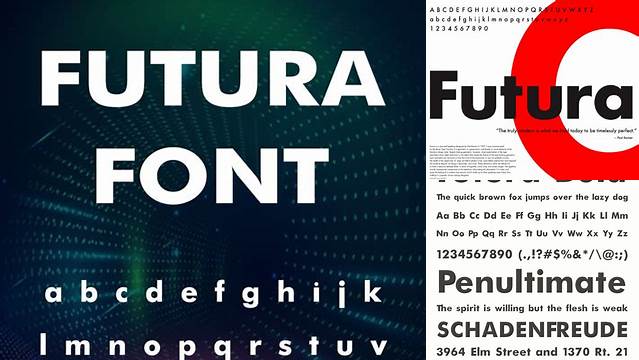
Hey guys! Are you on the hunt for the iconic Futura font family? You've come to the right place! This guide is your ultimate resource for a free download of the Futura font, covering everything from where to find it safely to how to install and use it like a pro. Futura is a timeless typeface, loved by designers and brands worldwide for its clean lines and modern aesthetic. Let's dive in and get you started with this fantastic font!
H2: The Allure of Futura: Why Choose This Font?
So, what's the big deal about Futura? Why is it still so popular, and why are you looking for a free download of the Futura font? Well, it's more than just a font; it's a statement. Futura, with its geometric sans-serif design, exudes both elegance and functionality. Designed by Paul Renner in 1927, it quickly became a favorite among designers. Its clean, uncluttered appearance makes it incredibly versatile. Think about it: you see Futura everywhere, from logos of major brands like Volkswagen and Supreme to classic movie posters and even on the moon during the Apollo 11 mission. That’s some serious pedigree, right? Its universal appeal lies in its ability to communicate effectively across various mediums. Whether it's a headline, body text, or a logo, Futura maintains its clarity and readability. The font's structure allows it to be easily scaled and adapted to different sizes without losing its essence. This adaptability is a key reason why Futura is still highly relevant in today's design landscape, where digital platforms and responsive design are paramount. Furthermore, the geometric forms create a sense of order and modernity, making it suitable for a wide range of design projects. The crisp, clear letterforms are incredibly readable, enhancing the overall user experience, whether on a website, in print materials, or in presentations. In essence, Futura doesn’t just look good; it works incredibly well, which explains its enduring popularity and why people constantly seek a free download of the Futura font.
This font isn’t just a collection of letters; it's a legacy of design. Its timeless appeal lies in its ability to be both modern and classic at the same time. The designers of the time appreciated its simple forms and its ability to be both eye-catching and easy on the eyes. As the design world evolved, Futura evolved with it, proving its staying power and solidifying its place in the history of typography. It has inspired many other fonts but remains in a league of its own. So, when you choose Futura, you're not just picking a font; you're choosing a piece of design history that will give your project a sophisticated and polished look, which is why getting a free download of the Futura font is a worthy pursuit.